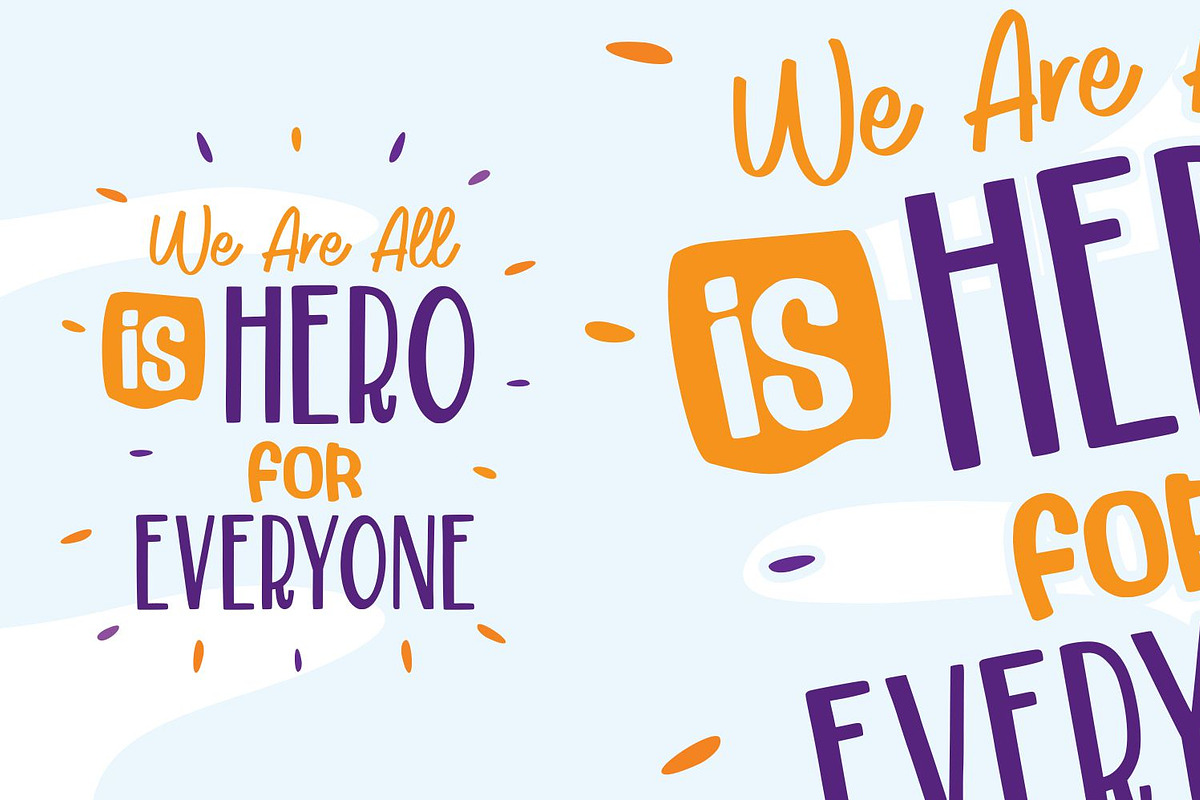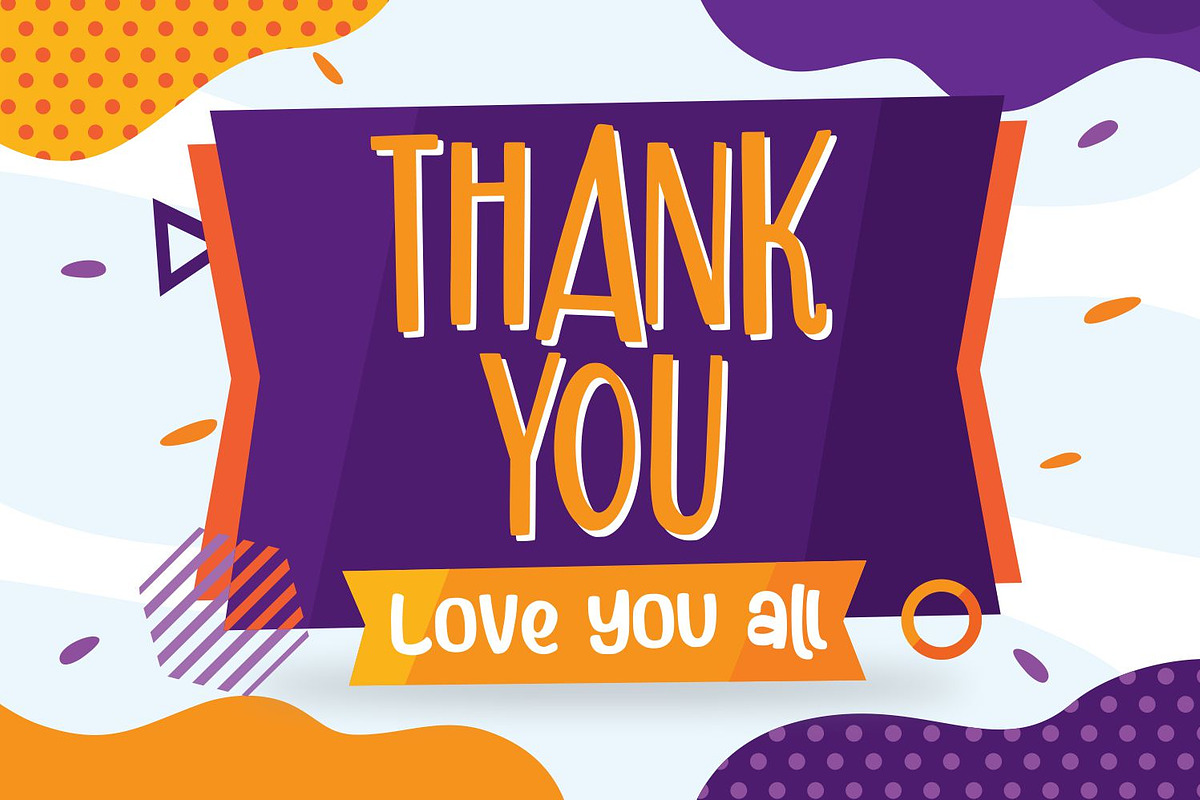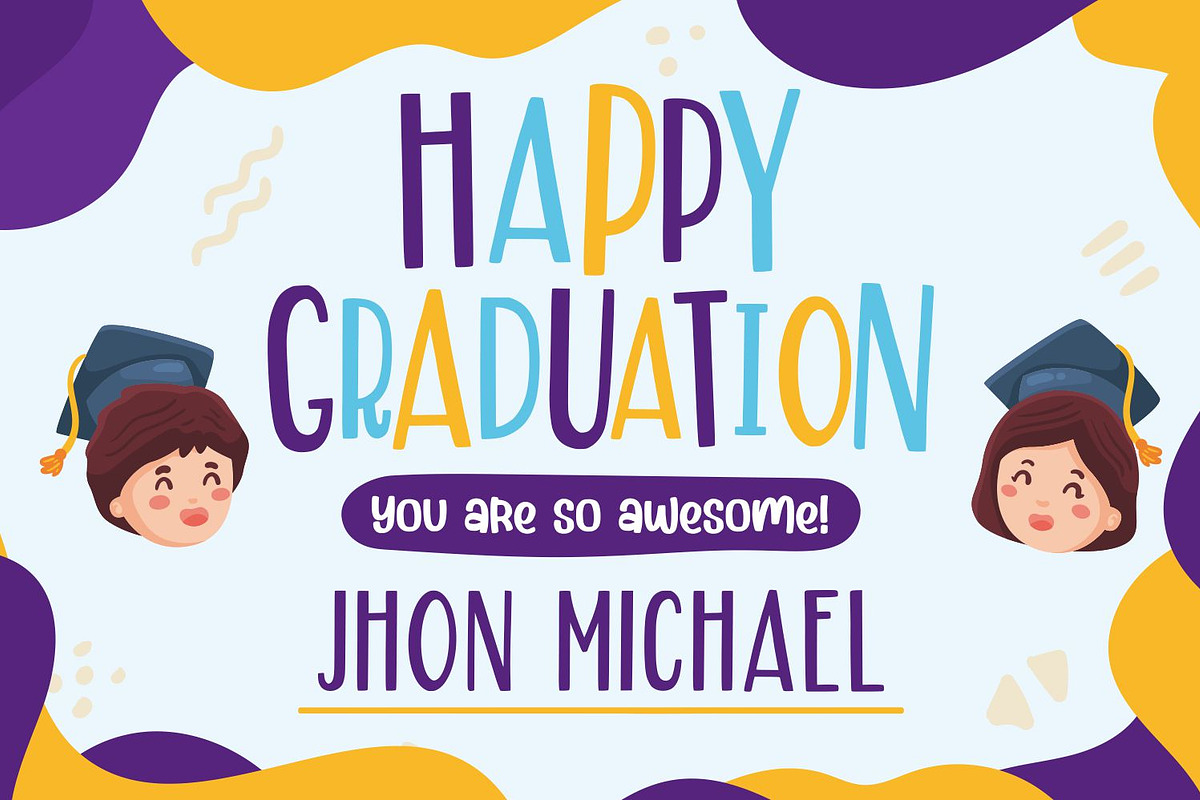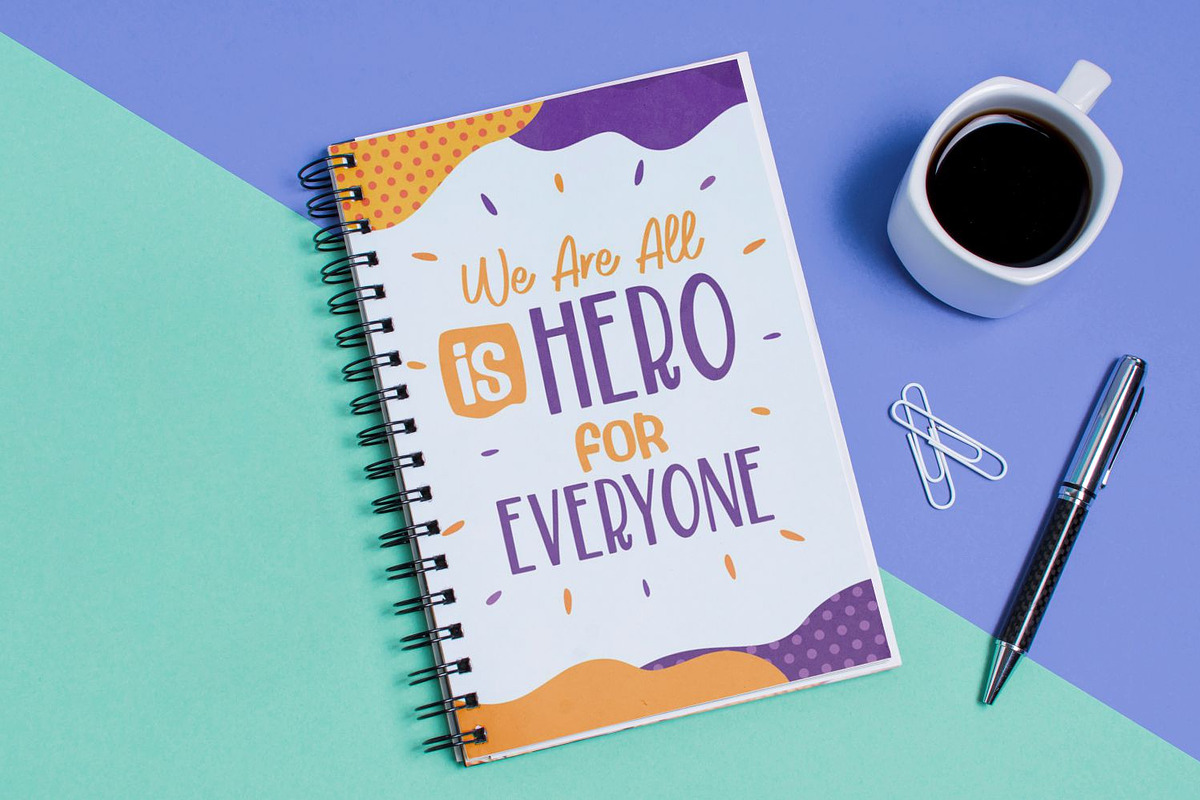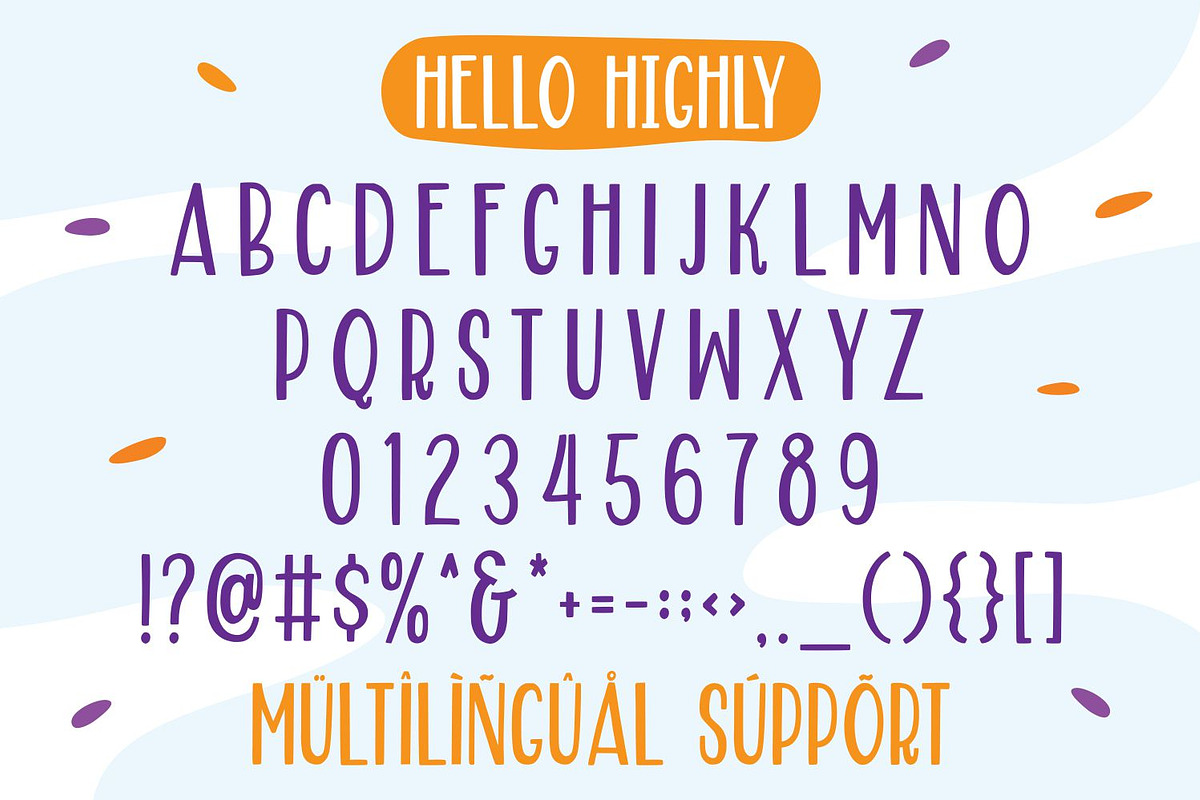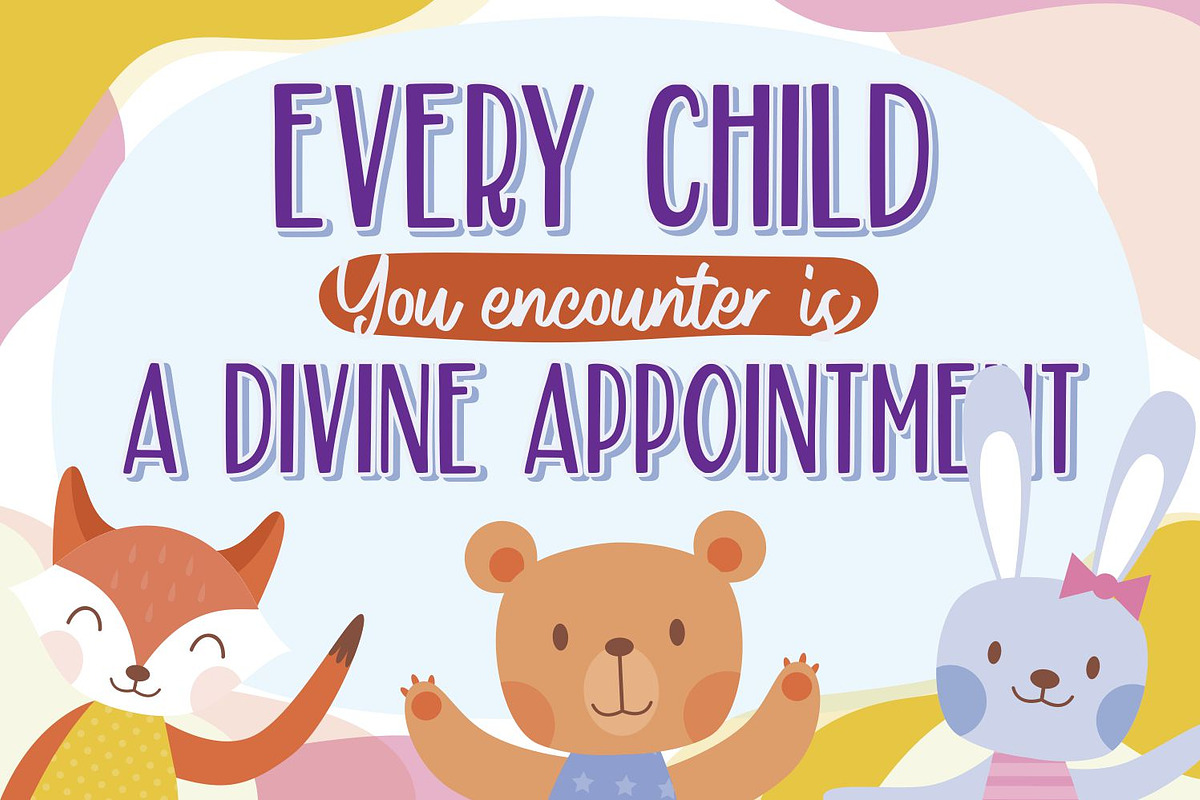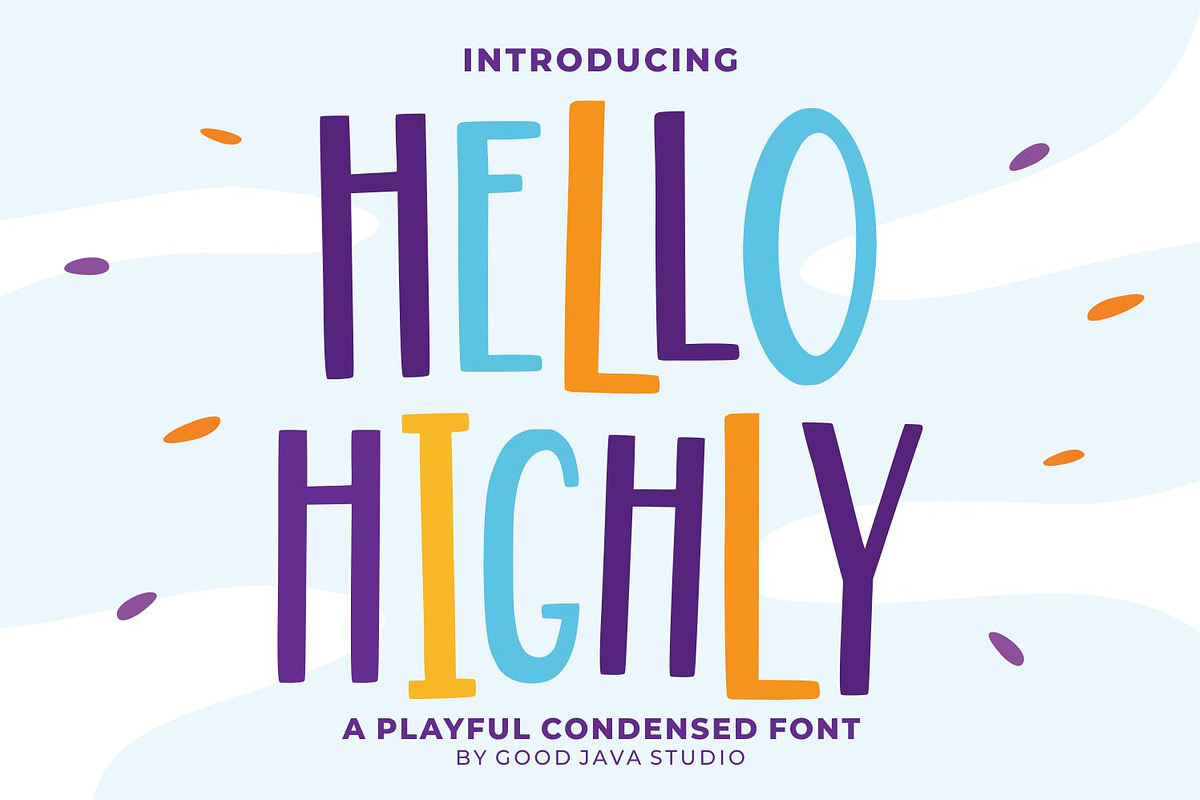
Font Hello Highly - Playfull Typeface
Introducing: Hello Highly - Playfull Condensed
Hello Highly is the perfect font for all your fun designs. The main font file is equipped with ordinary characters. Everything is made with the funny brush. So you can be sure they will work well together! It is suitable for you to use in making t-shirt design, quote, label, packaging, logo type, or long writing. Because we have compiled kerning and matrices that are tailored to your needs.
Hello Highly features:
Opentype Features (Stylistic Alternates)
Font Hello Highly - Playfull Typeface by Good Java Studio fits naturally into Branding, posters, packaging, typography.